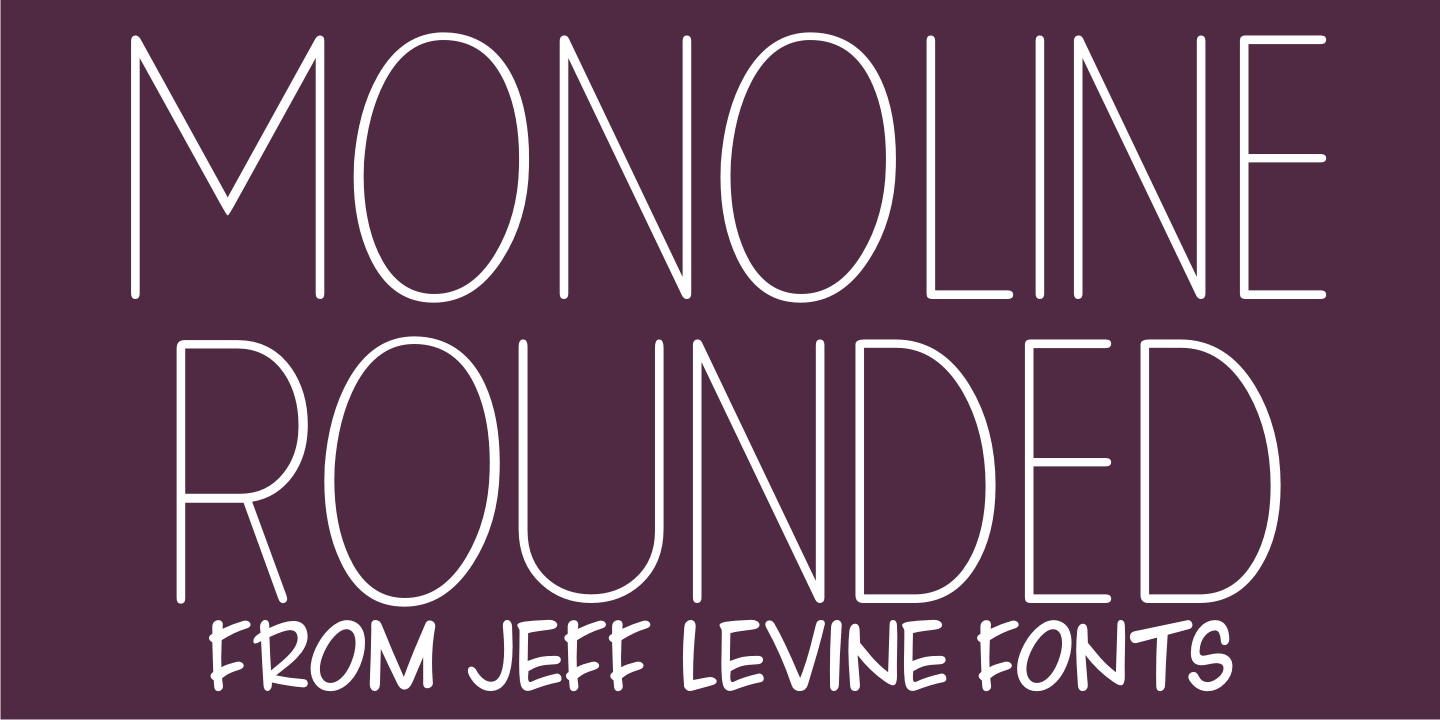
Monoline Rounded JNL is a hand display and art deco font published by Jeff Levine Fonts.
Monoline Rounded JNL borrows the inline portion of Sales Event JNL, makes a few adjustments to some characters and it is now a lovely monoline with rounded terminals that emulate pen hand lettering.